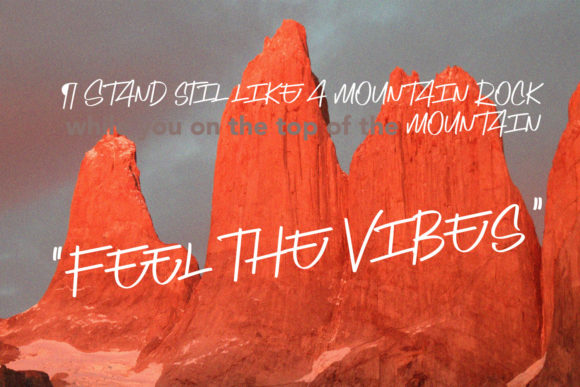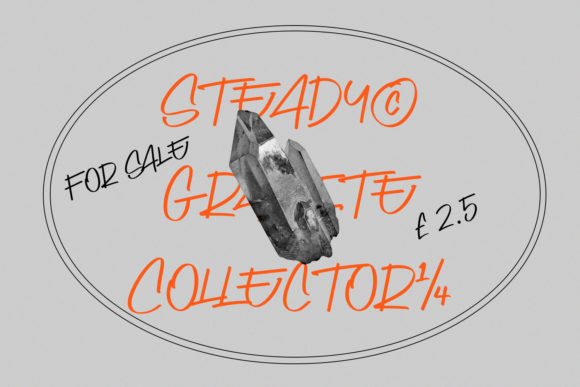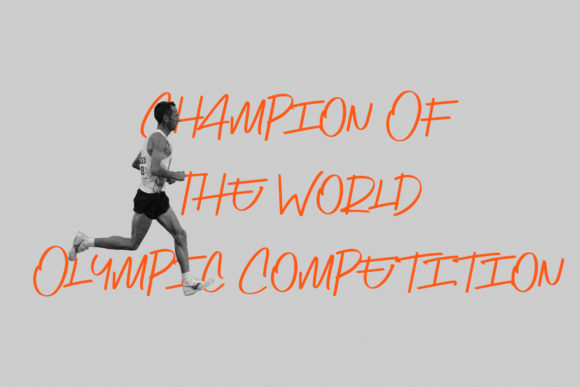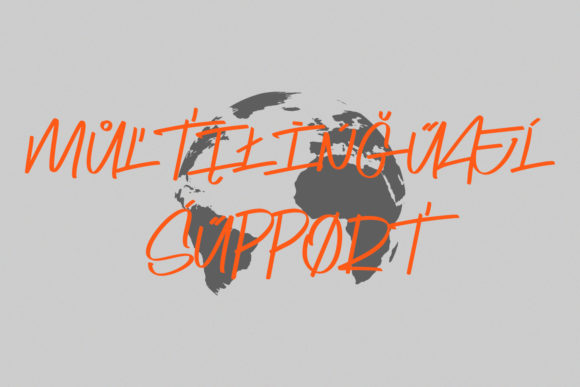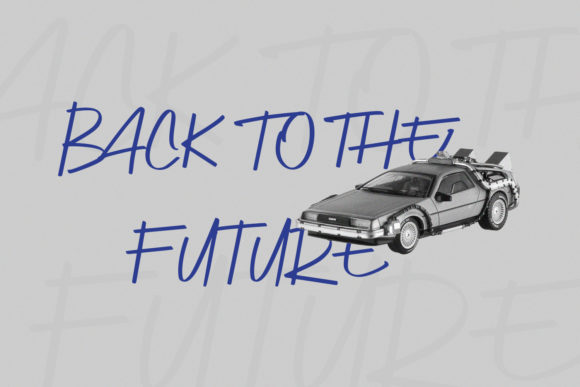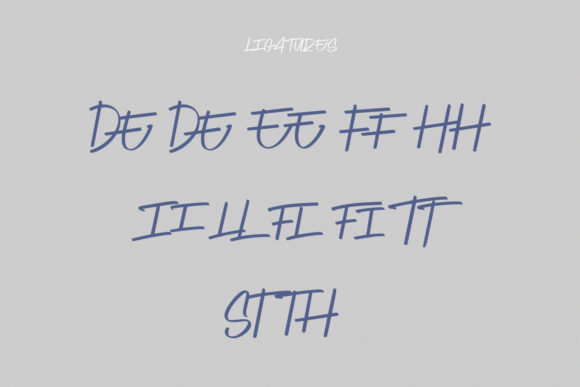
The Ultimate Guide to Deustchen Font: Elevate Your Designs with this Quirky Handwritten Gem
I’ll never forget the time I was working on a project for a client who wanted a font that was both cool and readable. I had spent hours scouring the internet for the perfect font, but nothing seemed to fit the bill. That was until I stumbled upon Deustchen Font. This quirky handwritten font has been a game-changer for my designs, and I’m excited to share its awesomeness with you! 😊
An Honest Review of Deustchen Font
- ✨ **Readability**: Deustchen Font is incredibly easy to read, even at smaller font sizes. Its unique letterforms make it stand out from more traditional fonts.
- ✅ **Versatility**: This font is perfect for a wide range of projects, from branding and advertising to crafting and DIY tutorials.
- 💫 **Quirky Charm**: Deustchen Font has a certain je ne sais quoi that adds a touch of personality to any design.
While Deustchen Font is an amazing addition to any font library, it’s not perfect. Here are a few things to keep in mind:
- 🤔 **Limited Formality**: Deustchen Font is a highly informal font, which means it may not be the best choice for very formal or corporate projects.
- ⚠️ **Glyph Limitations**: While Deustchen Font has a wide range of glyphs, it may not have every special character or symbol you need.
The Backstory of Deustchen Font
Deustchen Font was created by a talented type designer who wanted to create a font that was both cool and readable. Inspired by the quirky charm of handwritten fonts, Deustchen Font was designed to add a touch of personality to any design. While the designer’s true identity remains a mystery, their passion for typography is evident in every letterform.
Q: What is Deustchen Font?
A: Deustchen Font is a cool, readable, and quirky handwritten font perfect for a wide range of design projects.
Q: What are some common uses for Deustchen Font?
A: Deustchen Font is perfect for a wide range of design projects, including branding, advertising, crafting, DIY tutorials, and more!